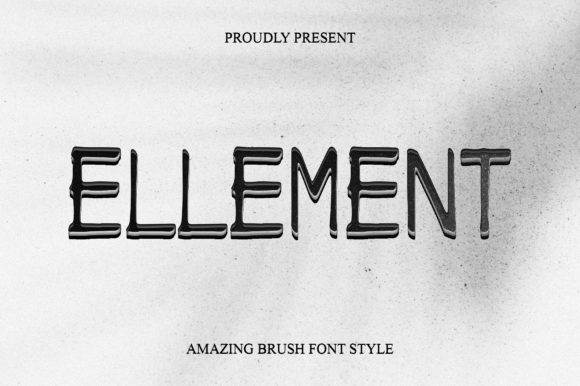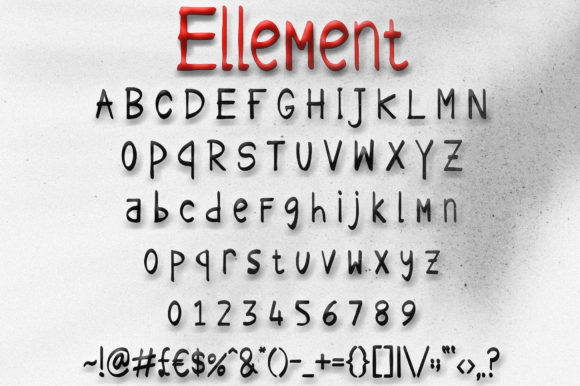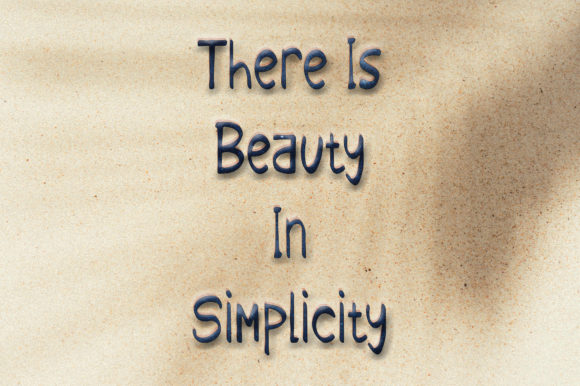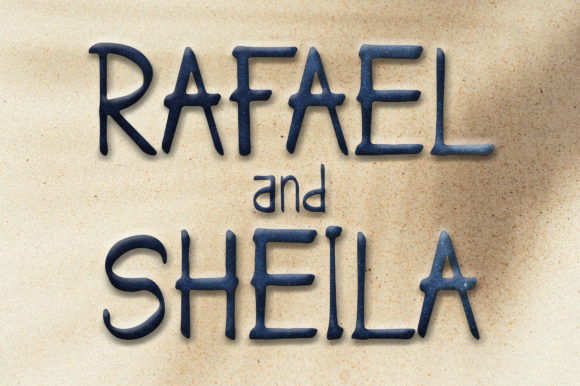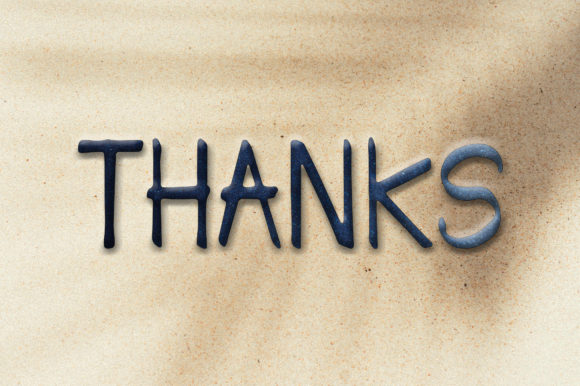
Introduction to Ellement Font
Ellement is a simple and clean sans serif font.
Whether youโ€™re looking for fonts for banner, wedding card or anything you can imagine, this font will turn any creative idea into a true piece of art .
Key Features of Ellement Font
Why Choose Ellement Font?